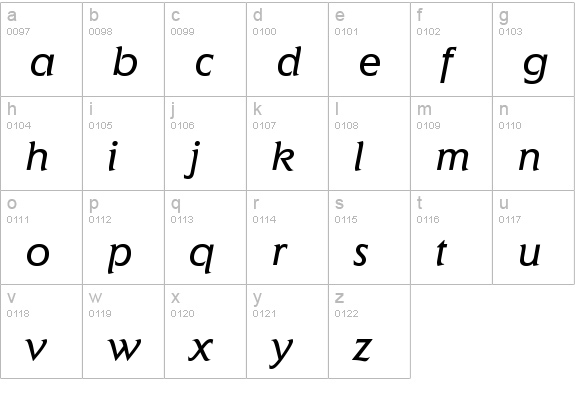
Elan* Book Italic is a comfortable, highly readable, italic variant in the Elan* typeface family \xE2\x80\x94 well suited to long-form body text, articles, and editorial content.
Elan Book Italic font is a stylish and elegant typeface that exudes sophistication and charm. Its sleek and slanted design adds a touch of flair to any text, making it perfect for projects that require a touch of class. The italicized form of the font lends a sense of motion and dynamism to the words, creating a visually appealing look that captures attention. What's even better is that Elan Book Italic font is freely available to download at FontsMarket.com. This means you can easily access this beautiful font without any cost, making it a versatile and budget-friendly option for all your design needs. Whether you're working on a creative project, designing a website, or crafting eye-catching marketing materials, Elan Book Italic font is sure to elevate your work and leave a lasting impression.